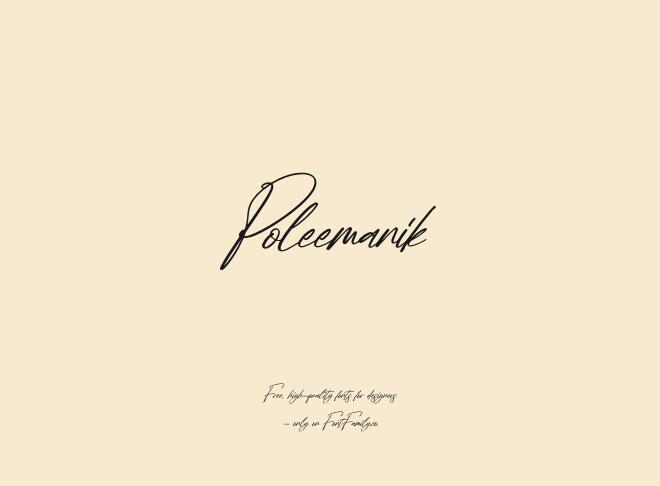
Poleemanik Font
Poleemanik Font, designed by the Polee Design Foundry, is a playful yet modern typeface that exudes creativity. This handwritten font features unique, fluid characters that add a distinctive touch to any design. Its versatile nature makes it a perfect fit for a wide variety of applications, from logos and posters to greeting cards and social media posts. The font's modern appeal differentiates it from traditional handwritten fonts, providing a fresh, contemporary look. Its playful undertone adds a fun and engaging element to designs, making it ideal for brands that want to stand out and make a bold statement. The Poleemanik Font is a free-to-use typeface, making it an excellent choice for designers on a budget. Its display category positioning allows it to shine in larger formats, where its unique characteristics can truly be appreciated.